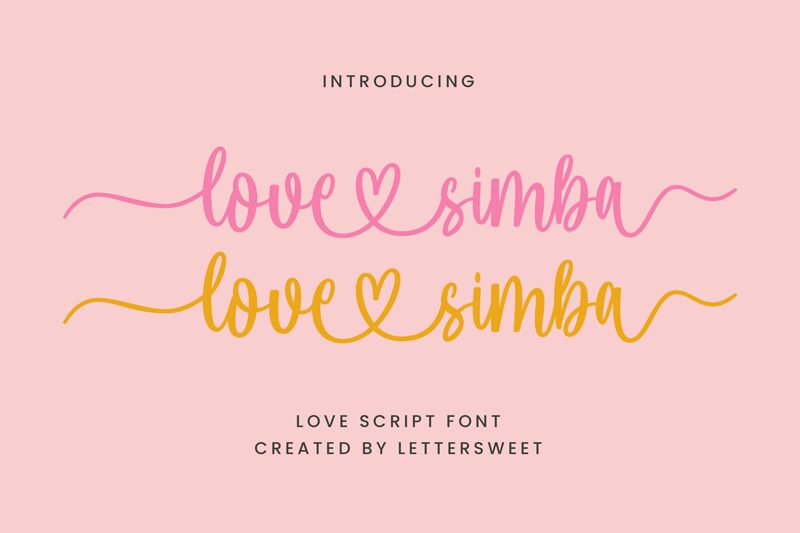
Love Simba font by Lettersweet Studio is an elegant and playful font with a handwritten typeface. Smooth, modern, and cheerful visuals reflect the creative designing of each of its characters. Friendly strokes make the letters flowing in harmony for beautifully-written messages that are highly noticeable. Overall, it is a stylish display font that supports your design work with extra currency.
Use Love Simba for developing digital graphics including mobile apps, websites, social media posts, invitations, logos, and product labels. Printed materials will also pop where flyers and magazines can be one category to consider exploring more ideas.